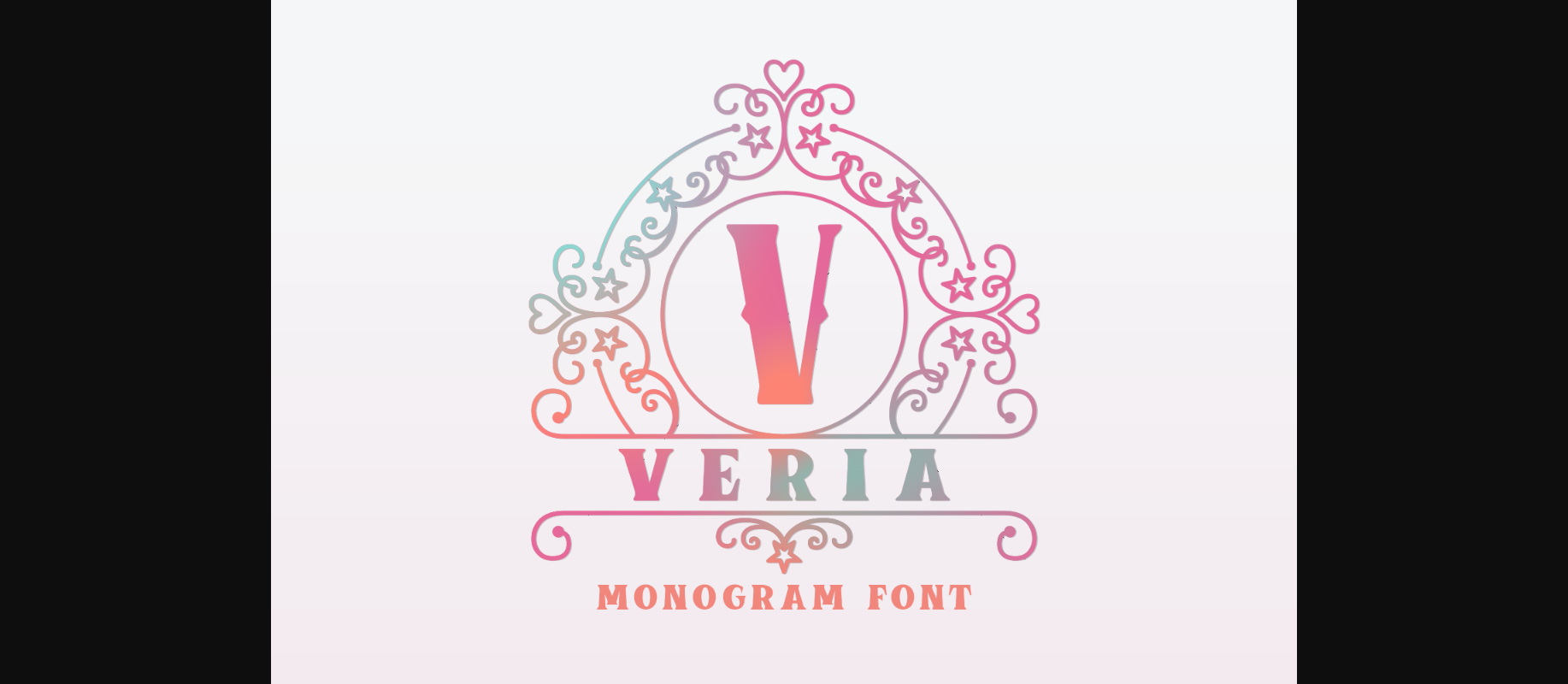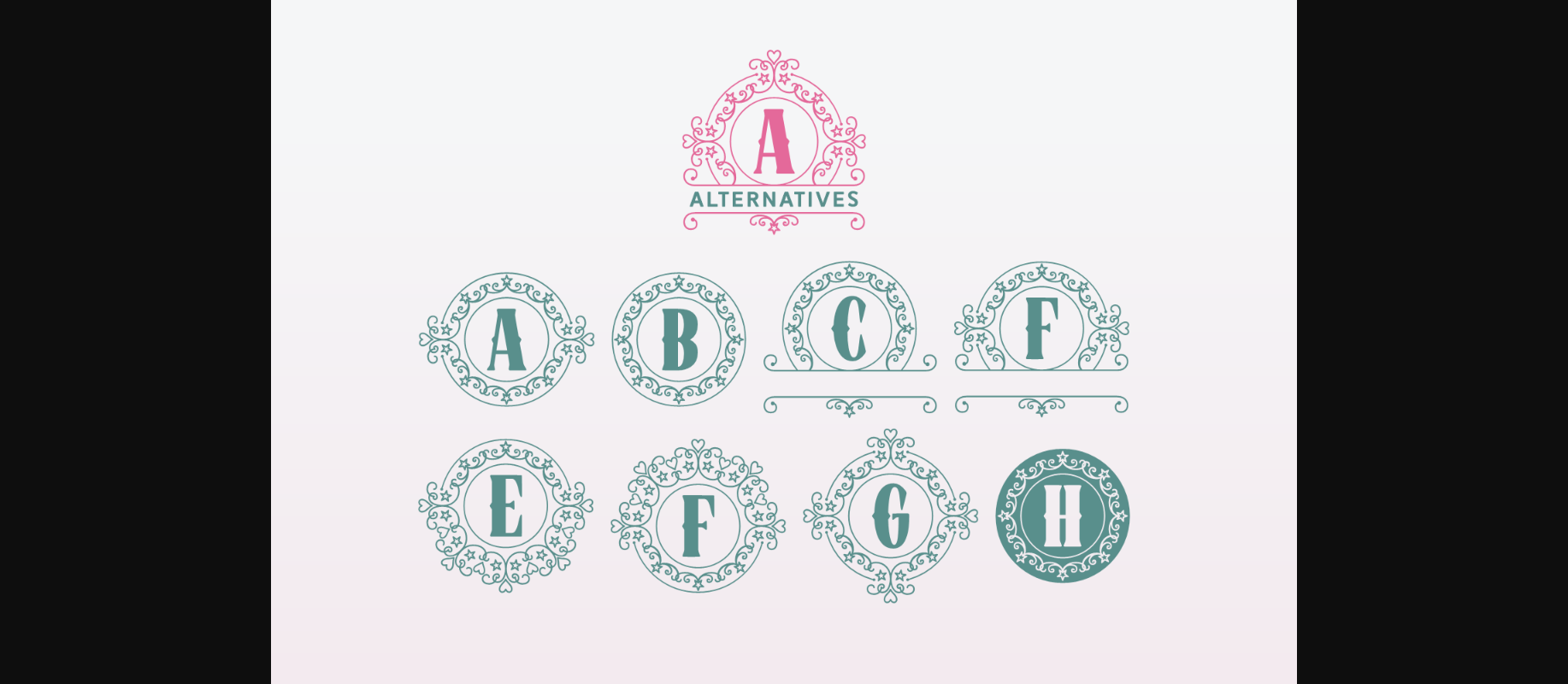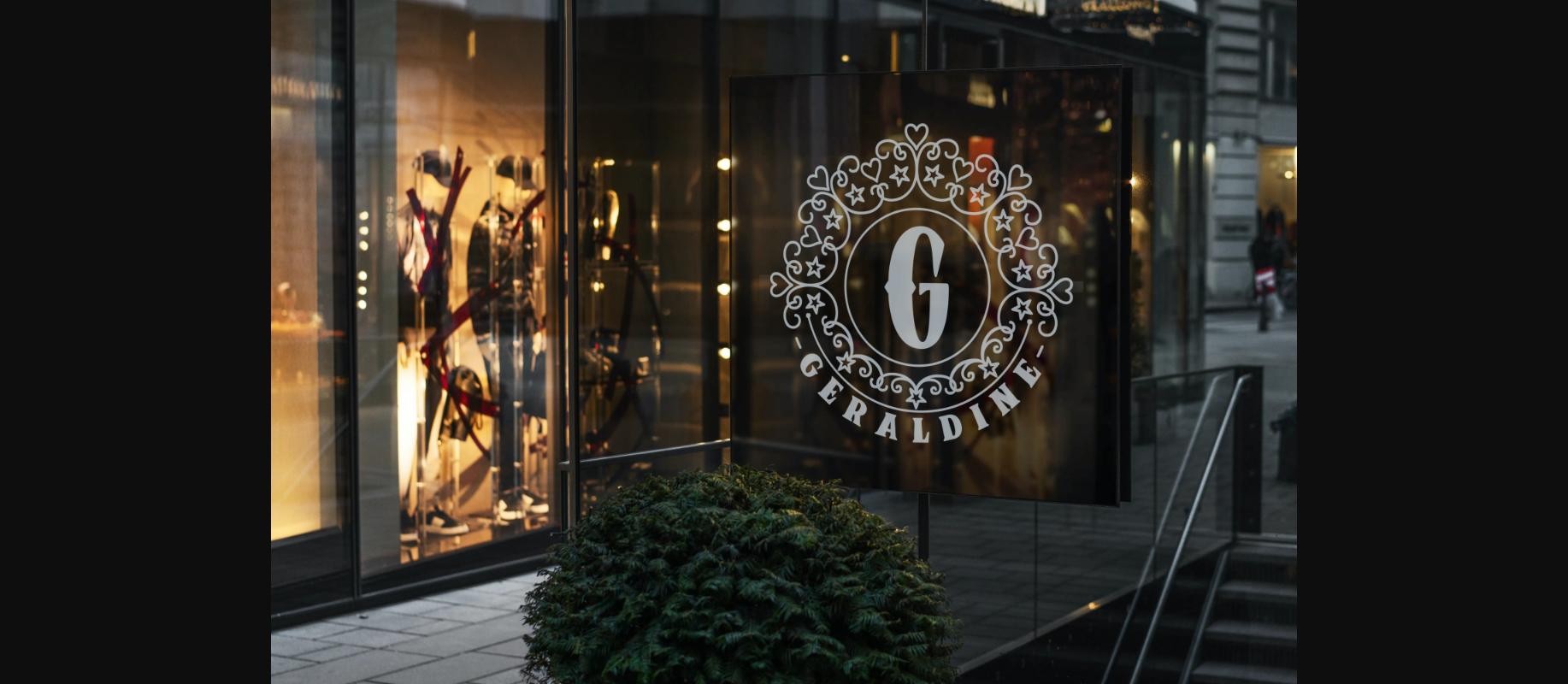
Veria Font
About Veria Font
Veria is a dazzling decorative font, featuring lovely ornaments. Fall in love with its authentic feel and use it to create gorgeous wedding invitations, beautiful stationary art, eye-catching social media posts, and cute greeting cards. This font is PUA encoded which means you can access all of the glyphs and swashes with ease!